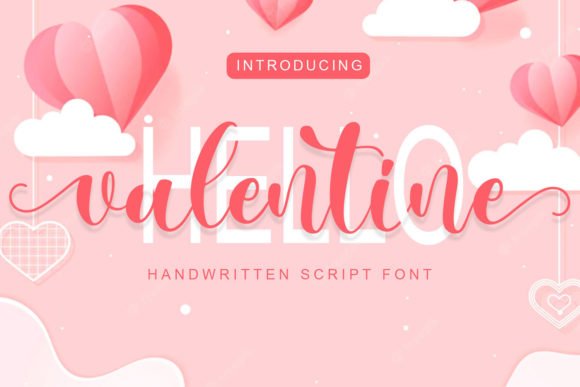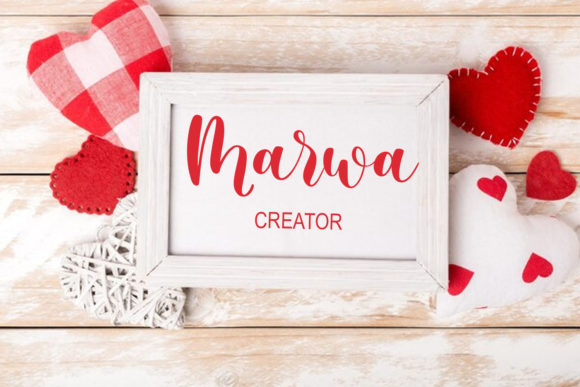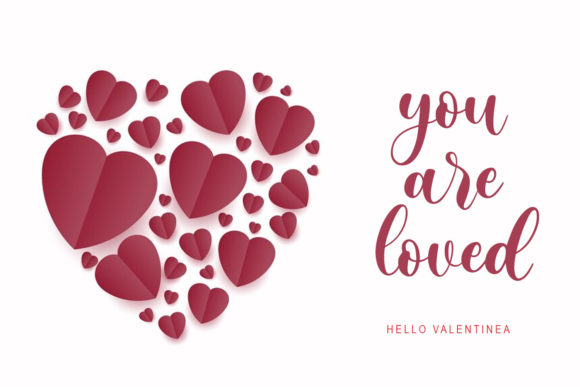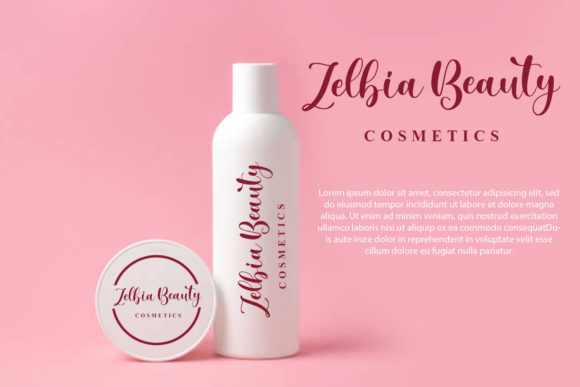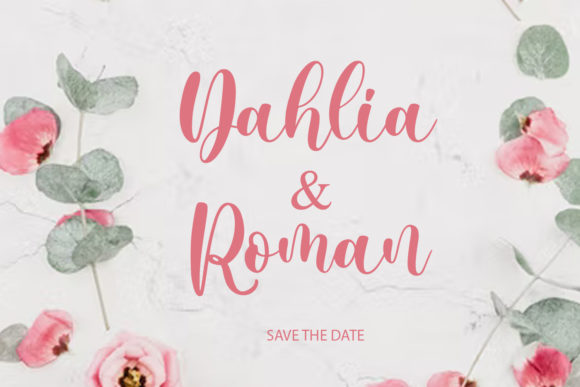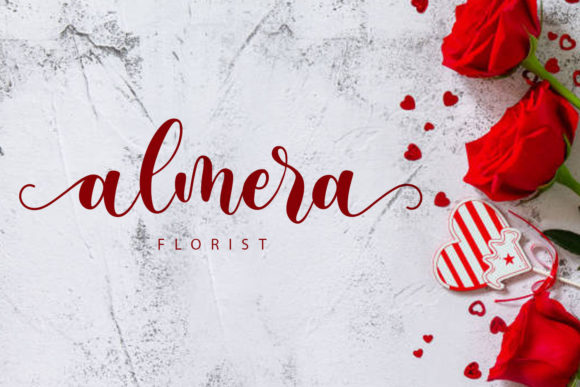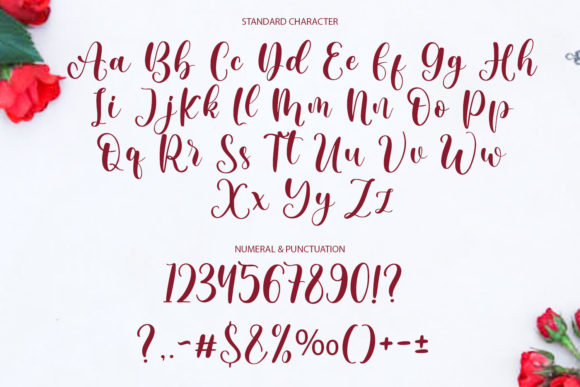
Love is in the Air: The Story Behind the Hello Valentine Font
Do you remember the feeling of rummaging through your grandmother’s old trunk, filled with vintage love letters and postcards? The smell of worn paper, the delicate handwriting, and the sense of romance that lingered in every crease? For designers, capturing that same essence in a modern design is a challenge we’re always eager to take on. And that’s exactly where the Hello Valentine Font comes in.
This beautiful, thin handwritten font is designed in a modern style, boasting well-balanced characters that seamlessly blend into a wide range of designs. Its PUA encoding ensures that every glyph and swash is easily accessible, giving designers the creative freedom they need to bring their ideas to life. Whether you’re working on a romantic project or simply want to add a touch of whimsy to your next design, the Hello Valentine Font is the perfect companion.
Hello Valentine Font Key Features
- Unique Characteristics: Hello Valentine Font features a unique, hand-drawn design with elegant flourishes and ornate details, making it perfect for romantic and festive designs.
Designer Review: Hello Valentine Font
Hello Valentine Font is a charming and delicate script font that’s perfect for adding a touch of whimsy to your designs. ✨ The font’s cursive lines and flourishes evoke a sense of romance and playfulness, making it ideal for Valentine’s Day-themed projects, wedding invitations, or other occasions that call for a touch of sweetness.
- The font’s subtle variations in letterform and spacing give it a natural, handwritten feel that’s both elegant and approachable.
- The font’s ligatures and swashes add a touch of sophistication and refinement, making it suitable for high-end designs.
- The font’s range of weights and styles allows for flexibility in terms of tone and mood.
However, there are some limitations to consider. ⚠️ The font may not be suitable for body text or large blocks of text, as the cursive lines can be difficult to read at smaller sizes. Additionally, the font’s delicate nature may make it prone to distortion or misrendering in certain contexts.
Overall, I think Hello Valentine Font is a beautiful addition to any designer’s toolkit. While it may not be suitable for every project, its unique charm and character make it a great choice for designs that require a touch of romance and whimsy.
Hello Valentine Font: A Practical Application Guide
Tips for Getting the Most Out of the Hello Valentine Font
Here are a few tips to help you get the most out of the Hello Valentine Font:
- Use it for romantic and whimsical designs.
- Combine it with floral patterns and illustrations for a vintage look.
The Hello Valentine Font is perfect for:
- Valentine’s Day cards and invitations.
- Romantic social media posts and graphics.
Carolyna Pro Font is a modern, elegant script font with a touch of sophistication. It’s perfect for creating a romantic atmosphere and is ideal for valentines, wedding invitations, and other love-themed designs. Compared to Hello Valentine Font, Carolyna Pro Font has a more refined and polished look, making it suitable for high-end designs.
What is the recommended font size and line height for the Hello Valentine Font?
For optimal readability, we recommend using a font size between 12pt to 18pt and a line height of 1.2 to 1.5 times the font size. This will ensure that the text remains clear and legible.